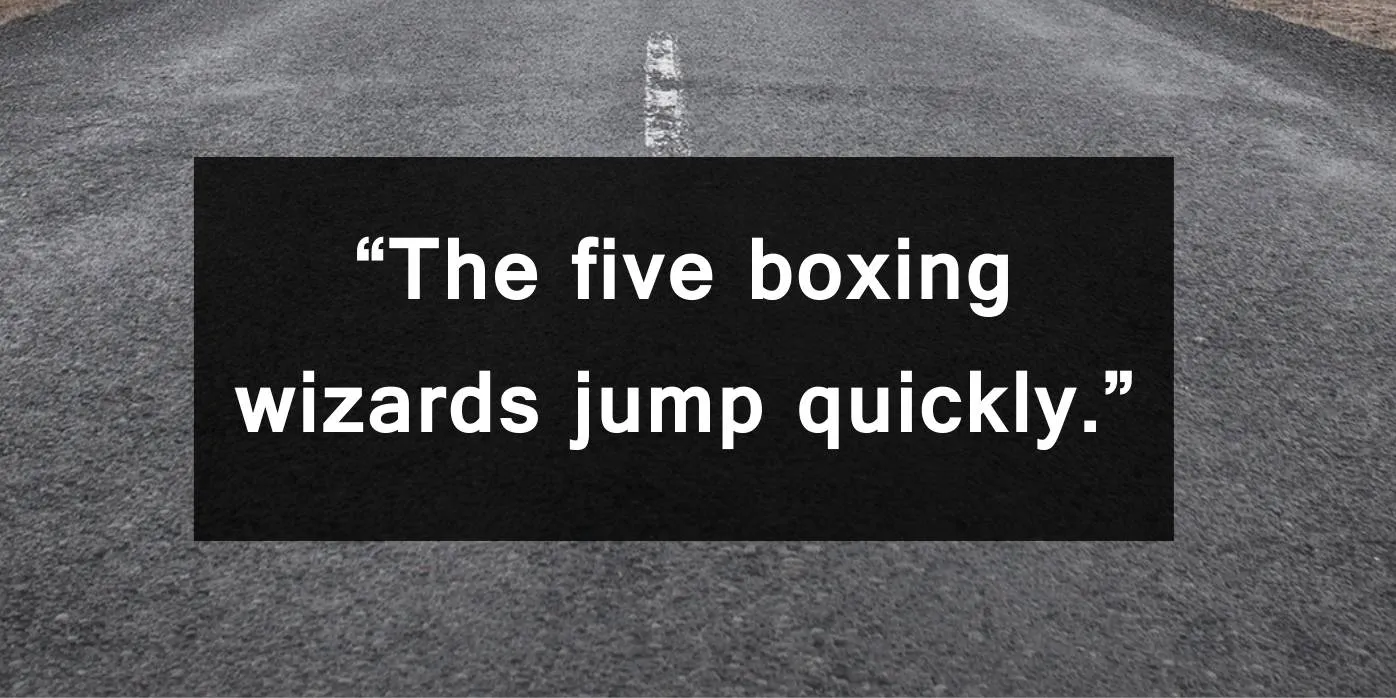
Raavi Font
Raavi Font was developed and published by Raghunath Joshi. This cute font family belongs to the Sans Serif font family. Sans Serif fonts can be divided into two groups, humanist and grotesque. The Raavi Font family falls into the grotesque category.